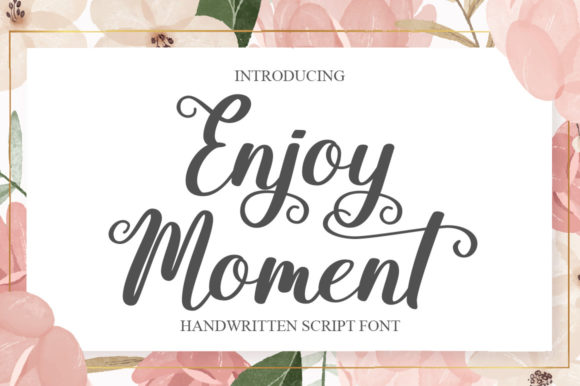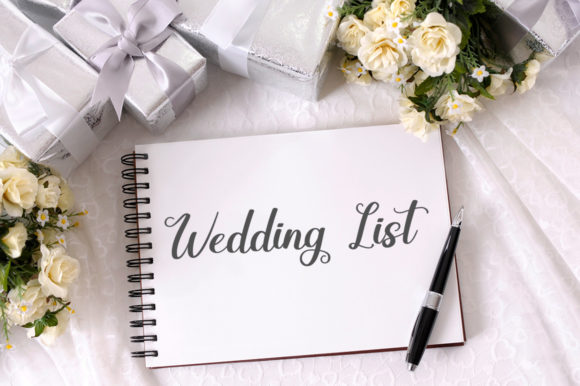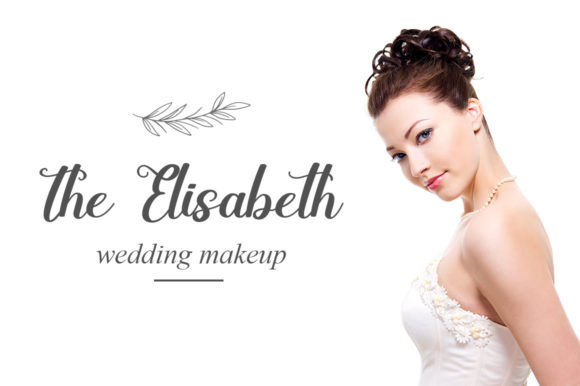
About Enjoy Moment Font
Enjoy Moment is a magical handwritten font. It looks ravishing on invitations, thank you cards, quotes, greeting cards, logos, business cards and every other design which needs a customized touch.This font is PUA encoded which means you can access all of the glyphs and swashes with ease!